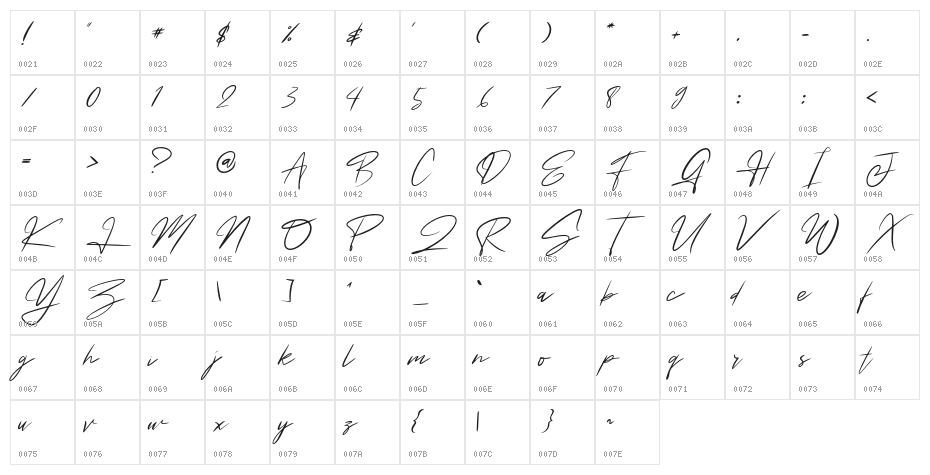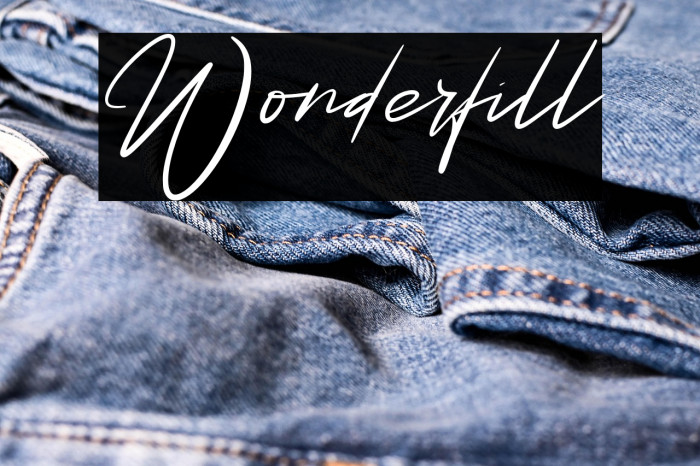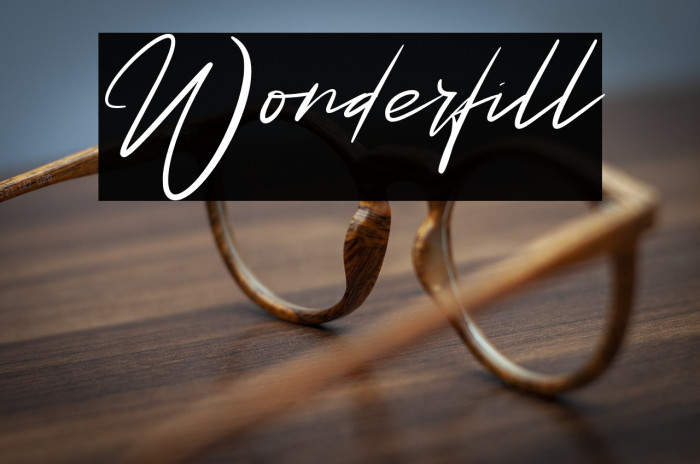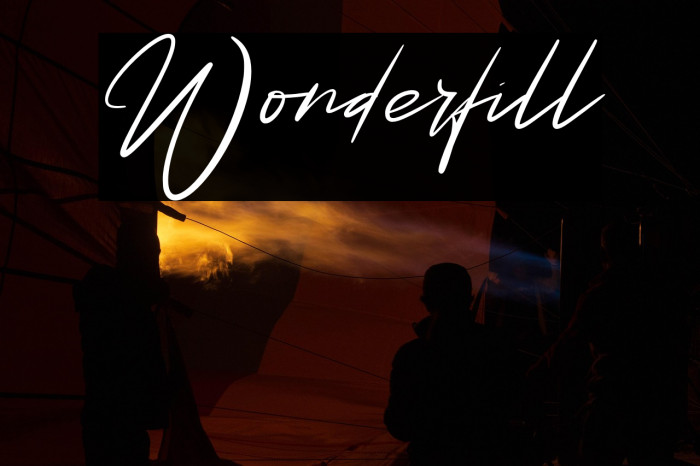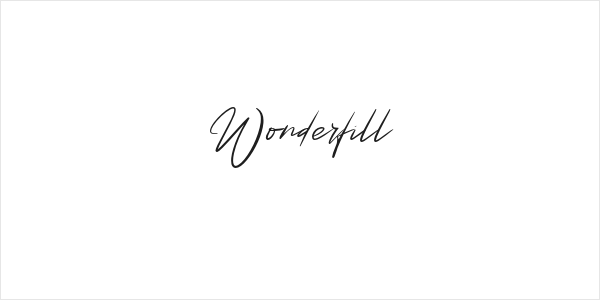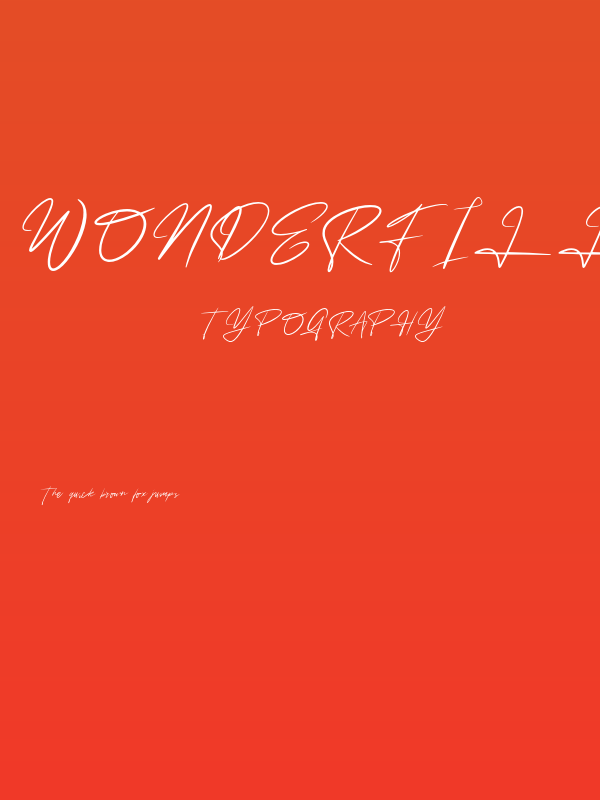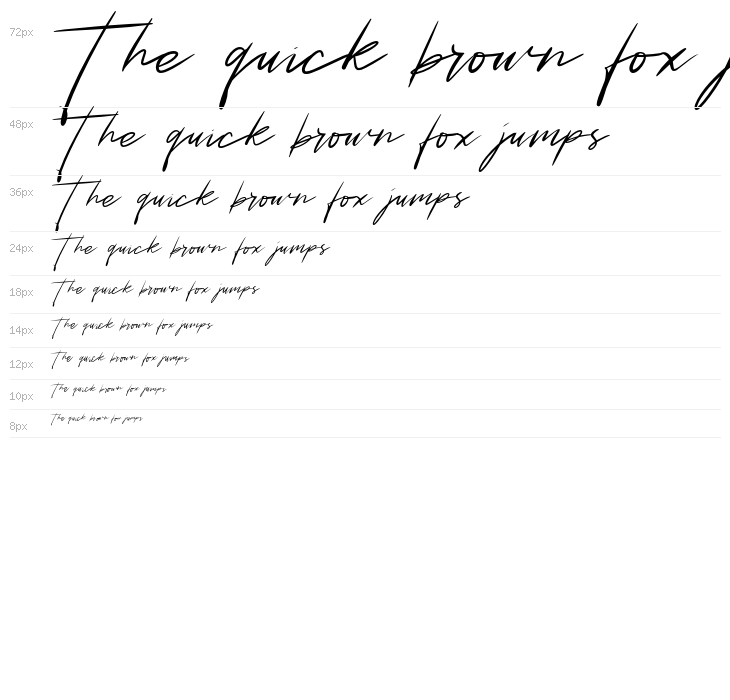
Wonderfill Font
Wonderfill Description
A flowing, cursive script font with a handwritten style, featuring elegant and connected letterforms.
| Use Case | Logos, Invitations, Greeting cards |
| Proposed Projects | Invitations, greeting cards, personal branding. |